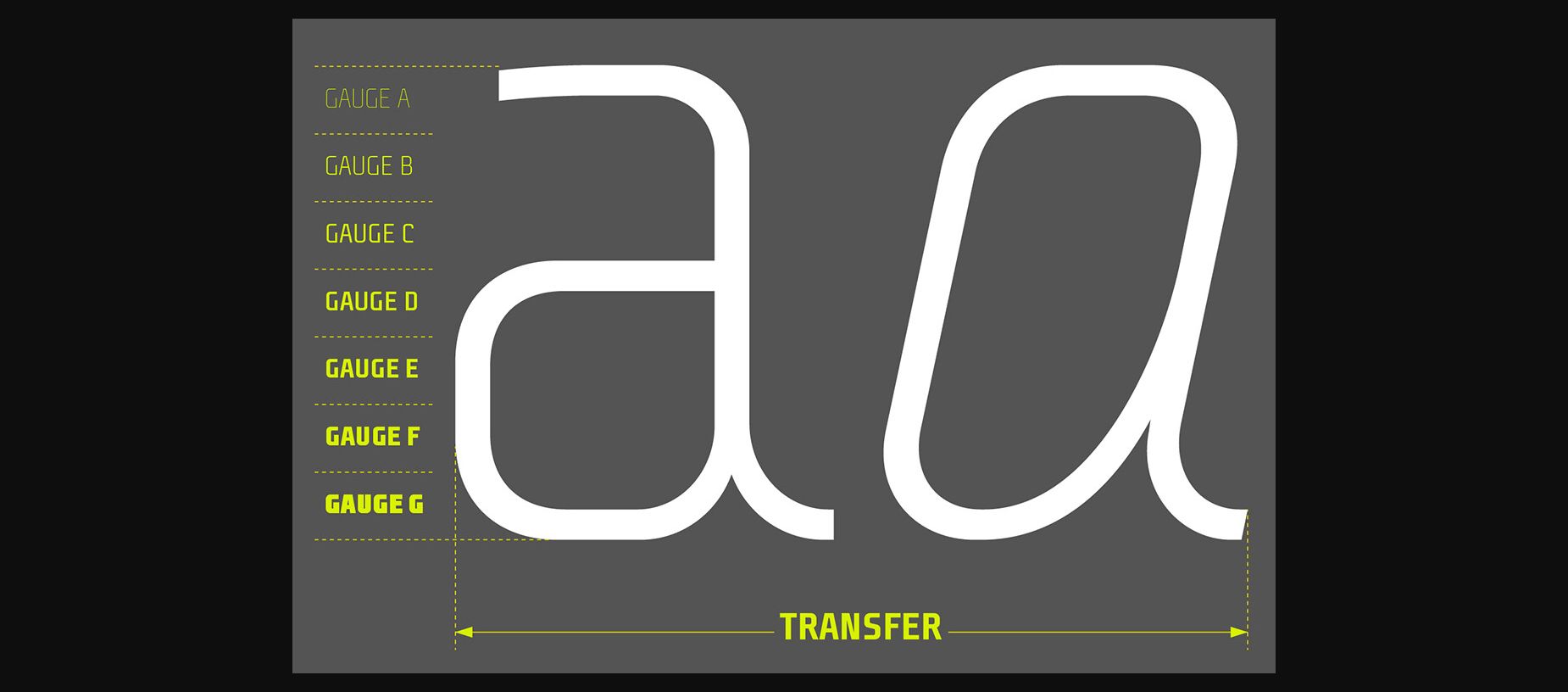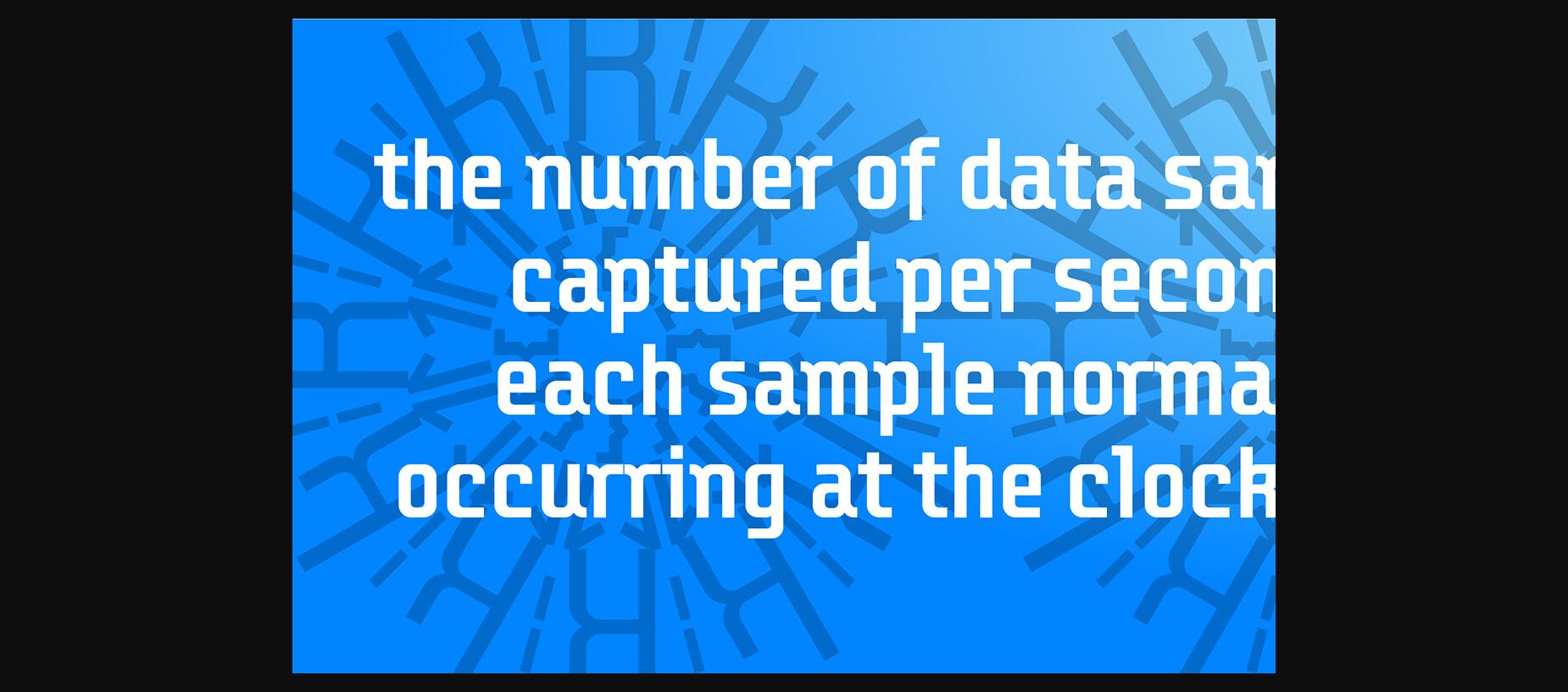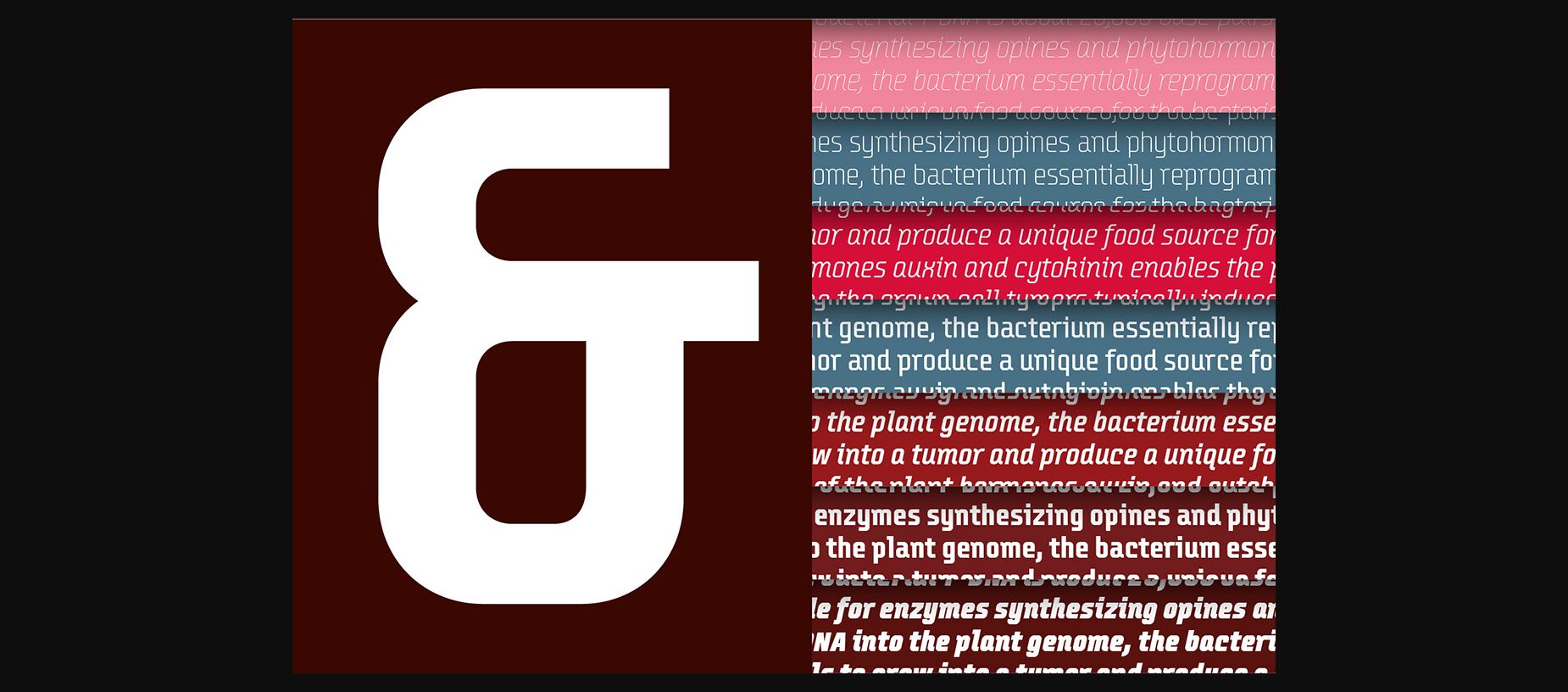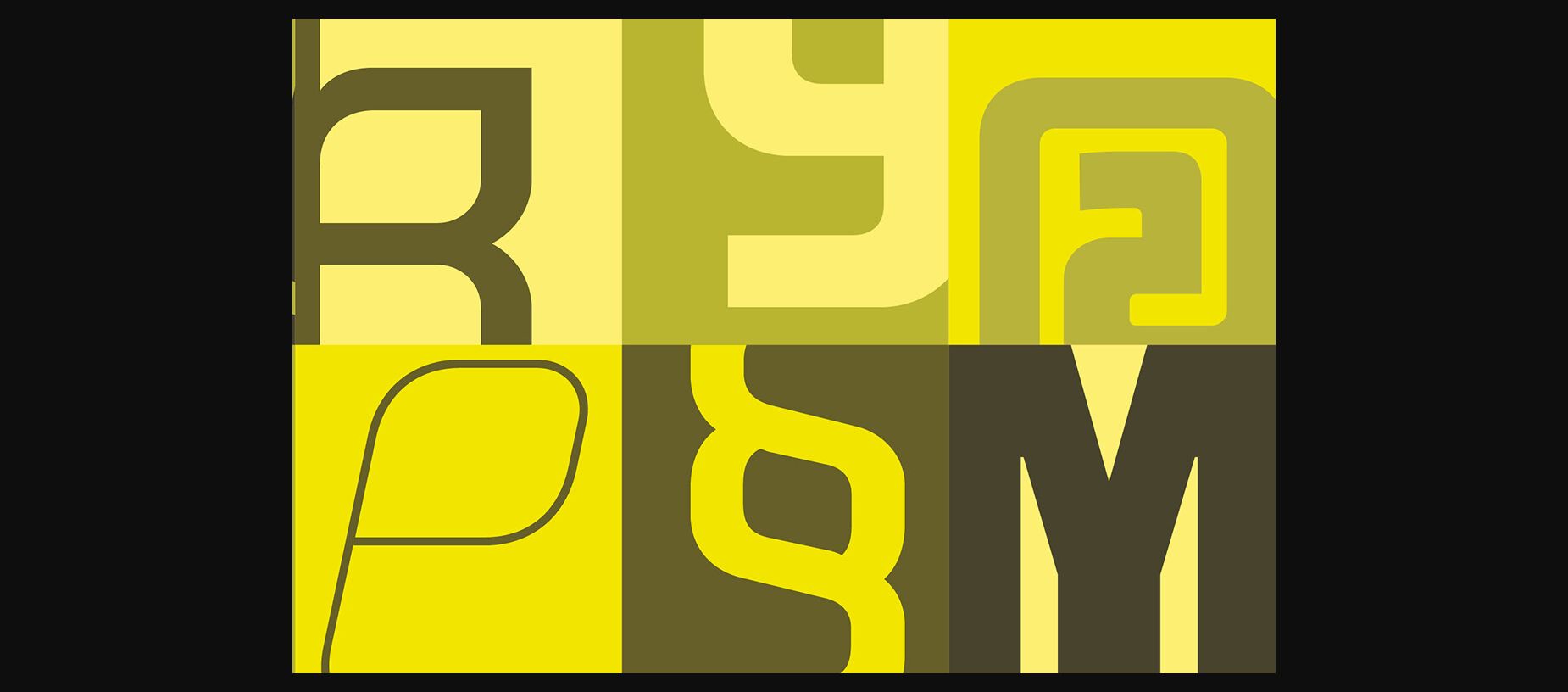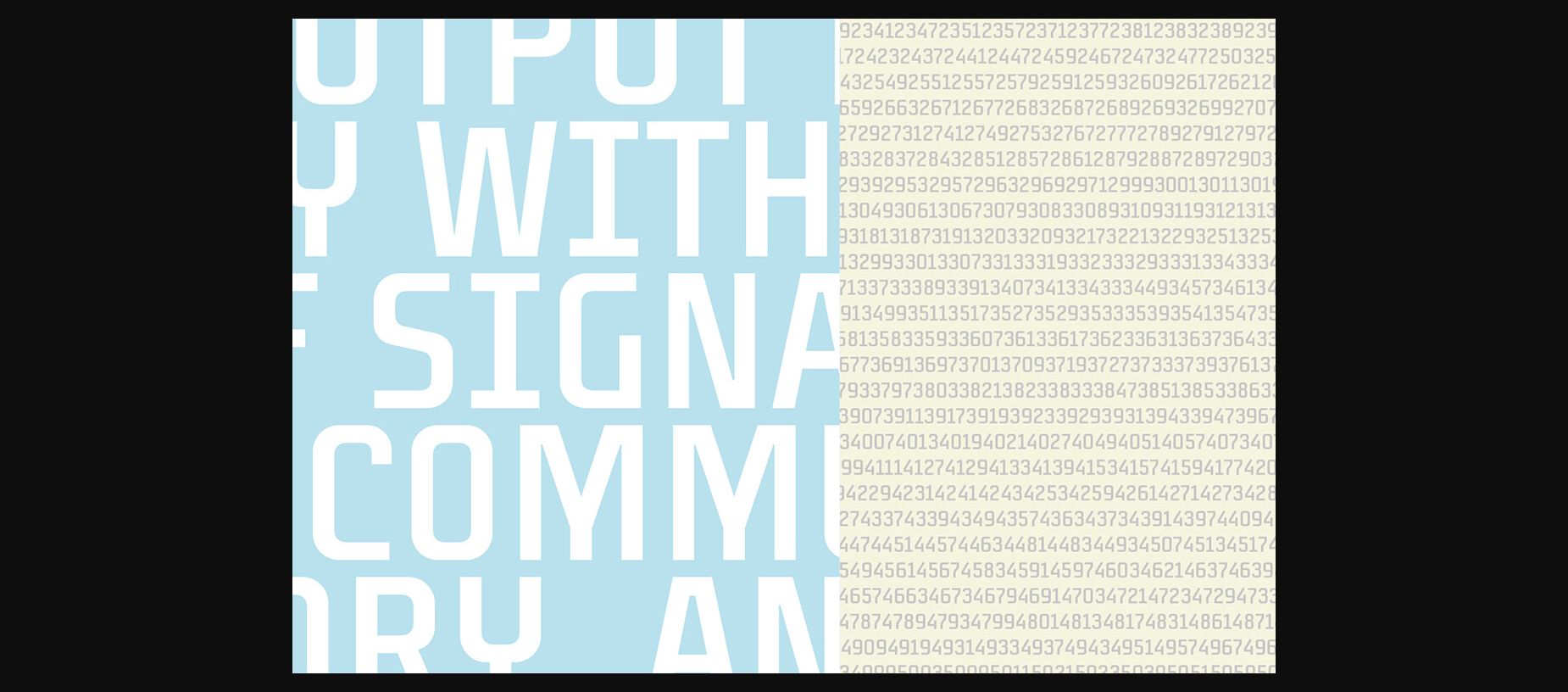
About Transfer Font
Transfer embodies sophistication with its sleek monoline design, adding a distinctive tech essence to any text it graces.
With 7 meticulously crafted weights, known as gauges, it effortlessly caters to diverse applications.
Originally conceived as a bespoke typeface for the headlines of a renowned French books and hi-fi retailer’s magazine,
Transfer exudes a unique blend of elegance and functionality.
With 7 meticulously crafted weights, known as gauges, it effortlessly caters to diverse applications.
Originally conceived as a bespoke typeface for the headlines of a renowned French books and hi-fi retailer’s magazine,
Transfer exudes a unique blend of elegance and functionality.